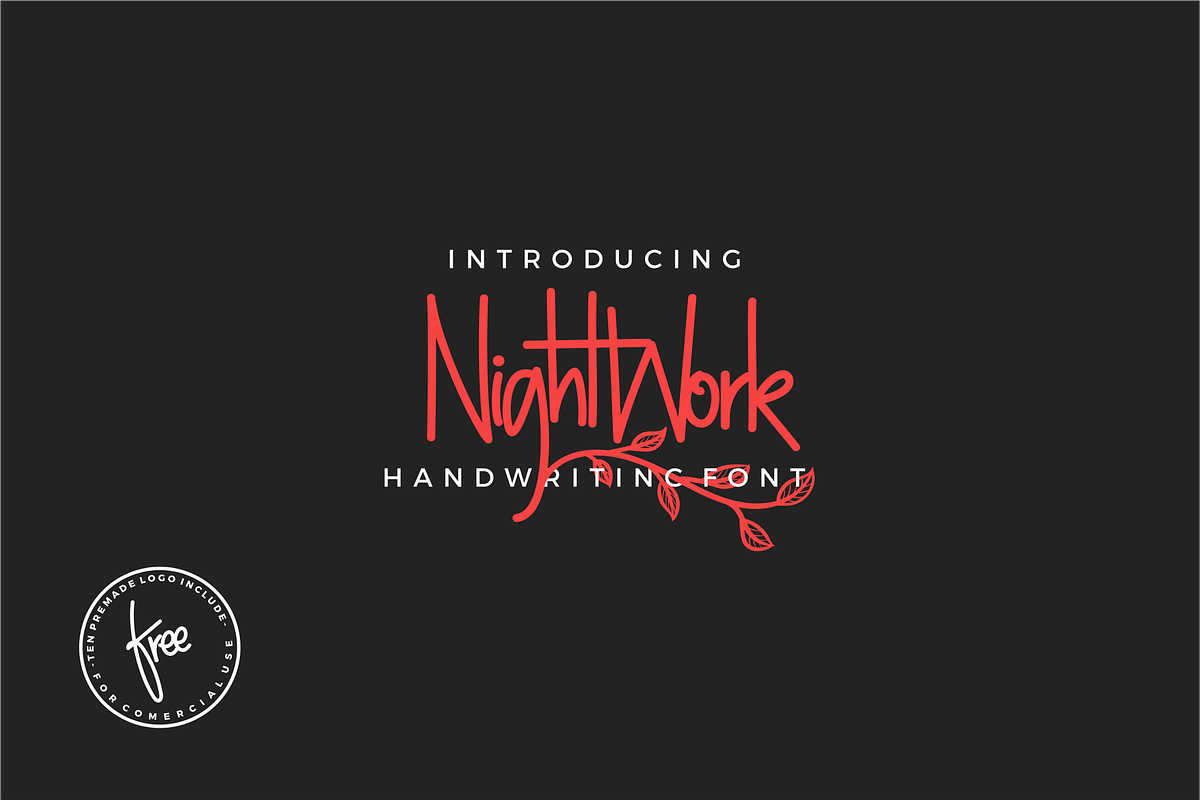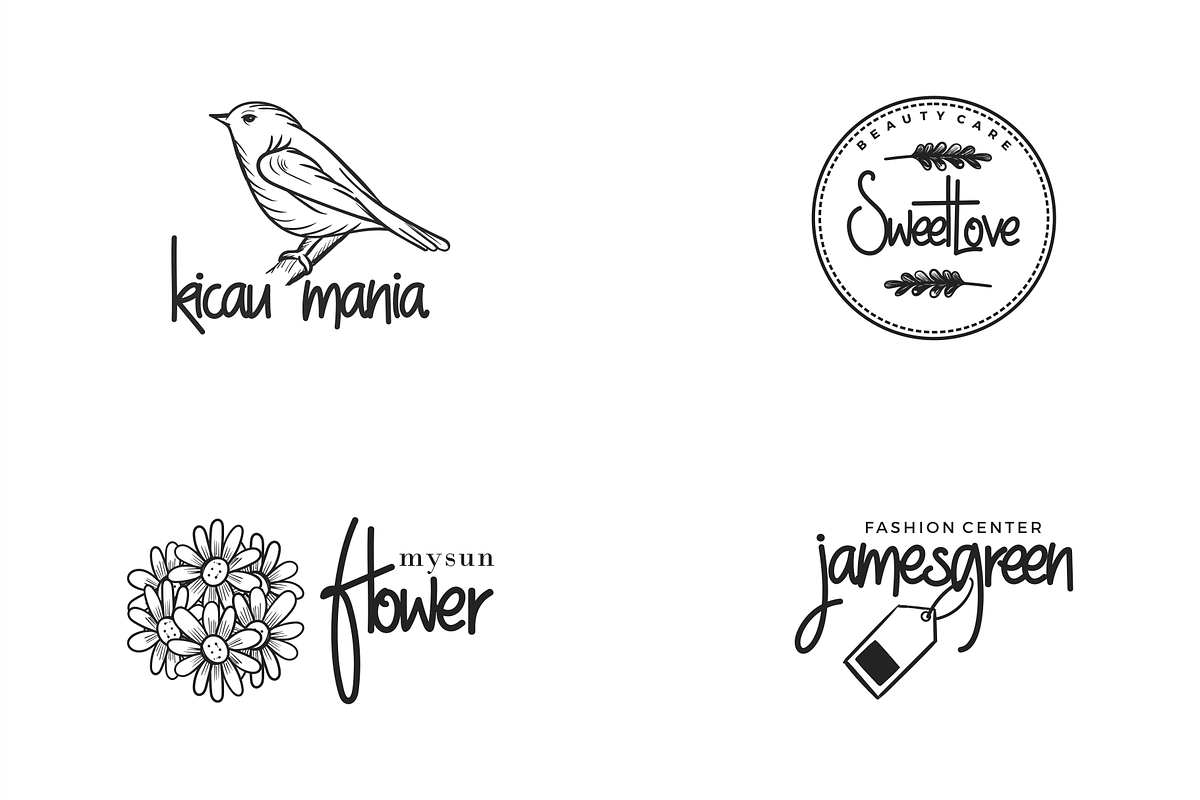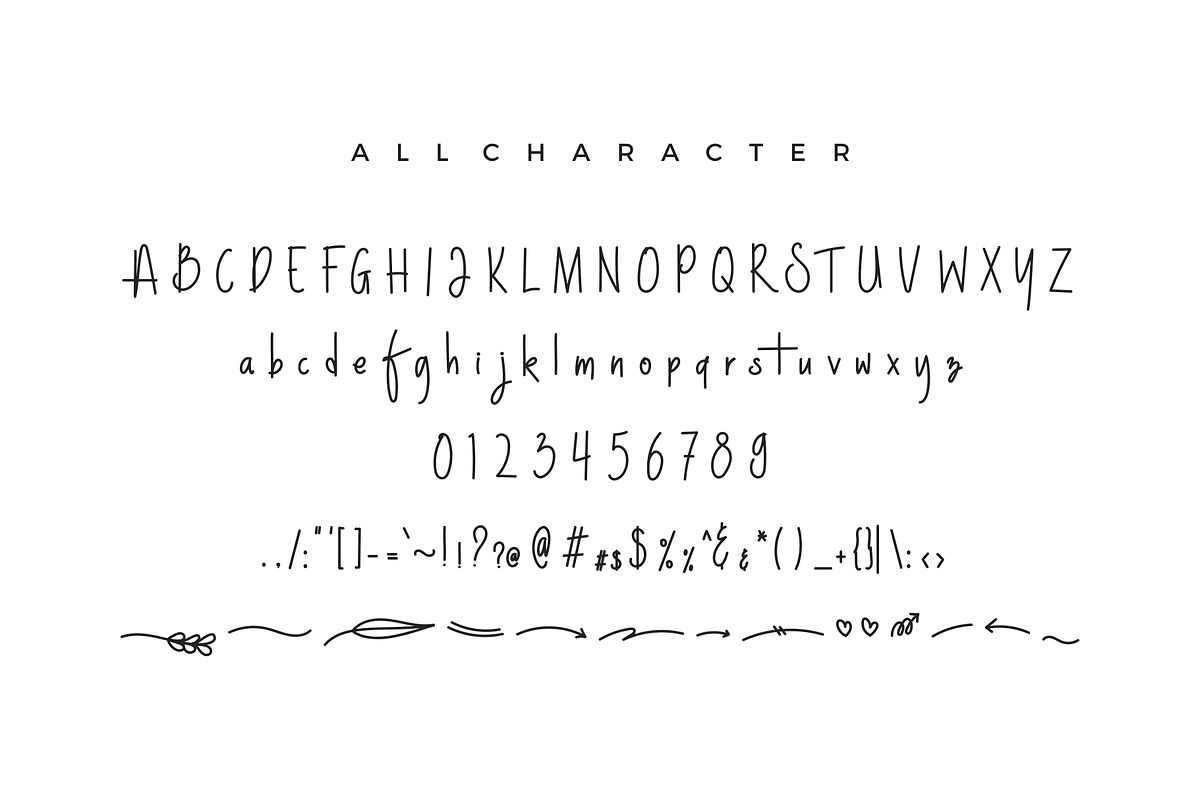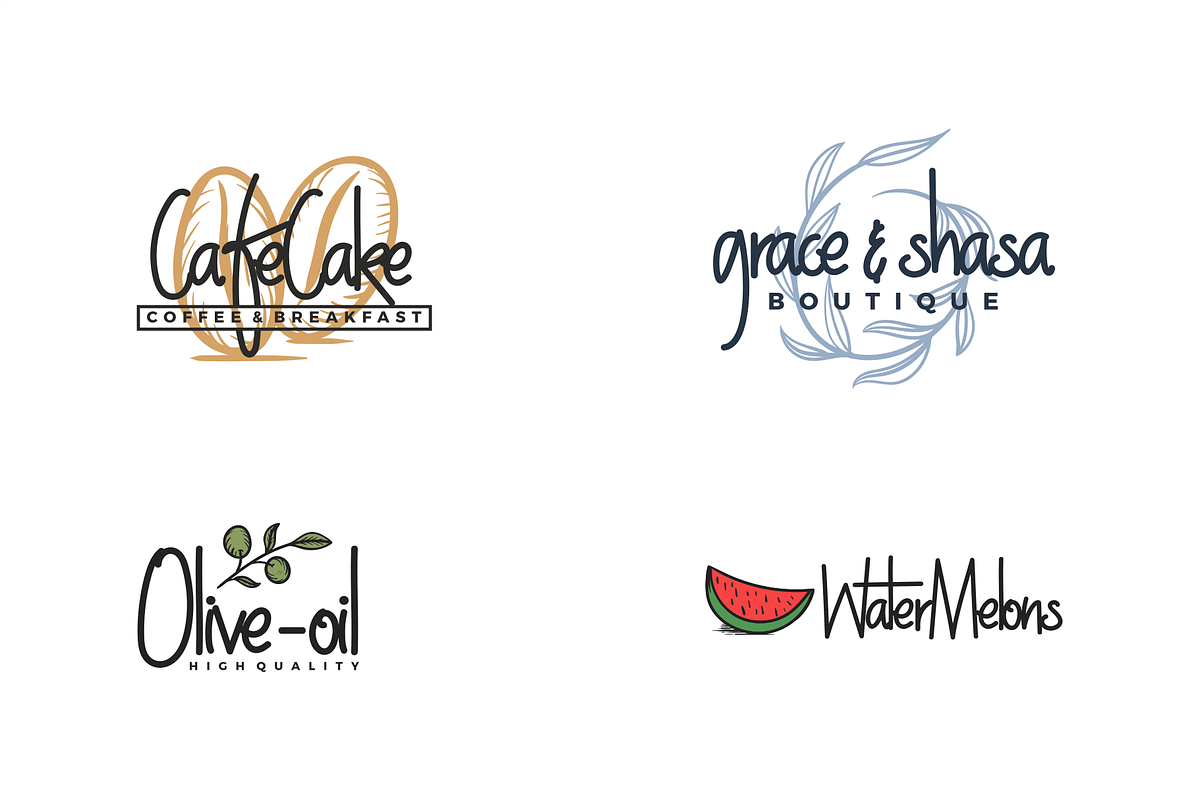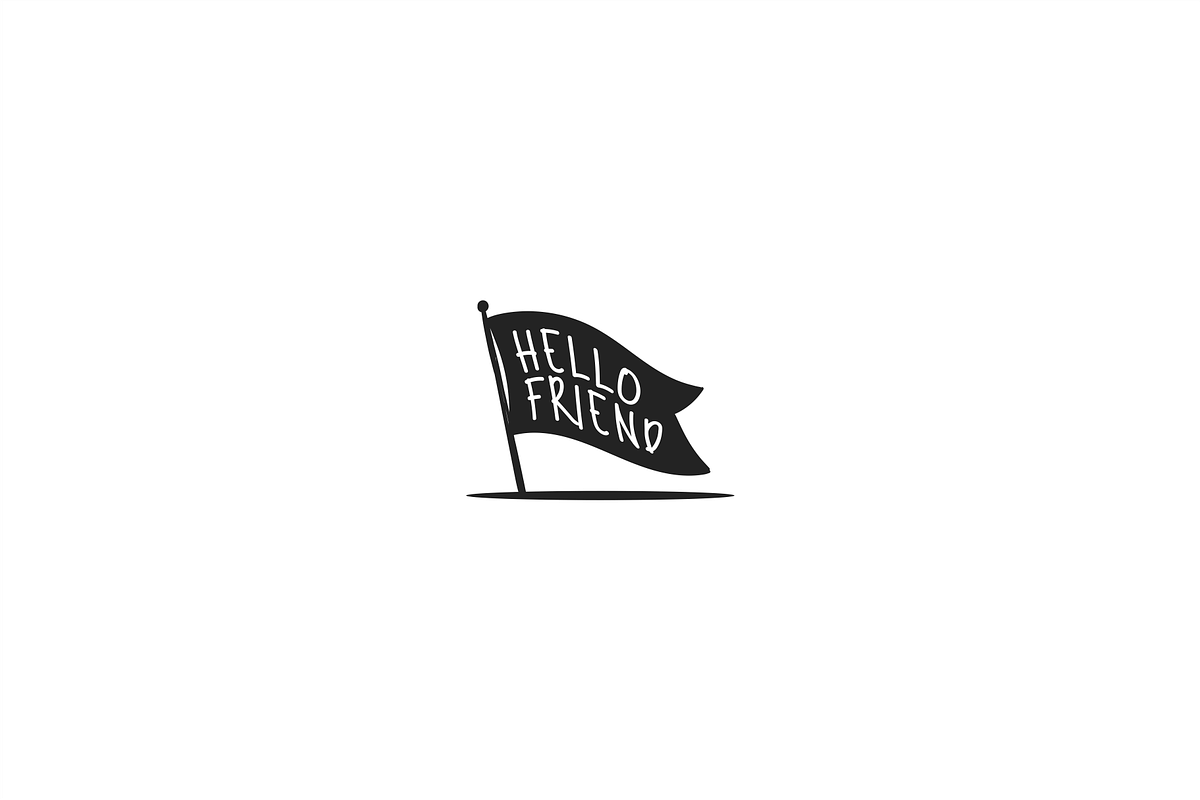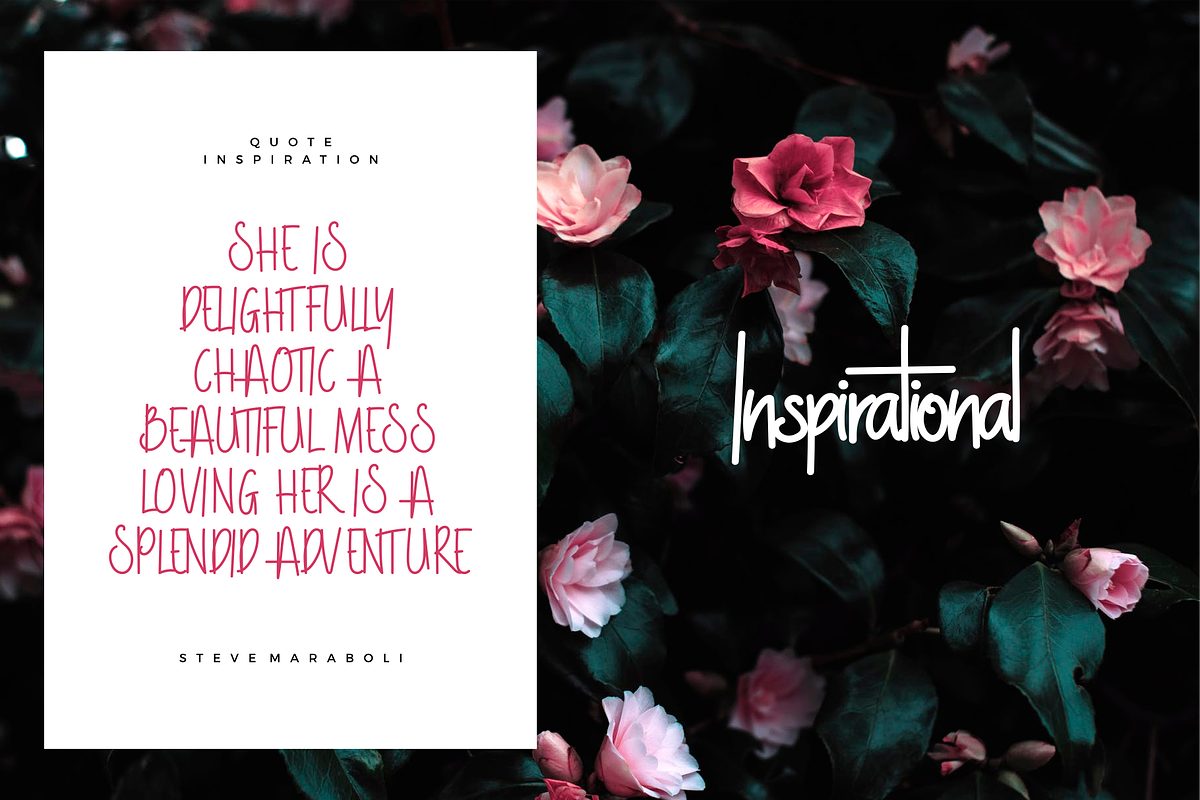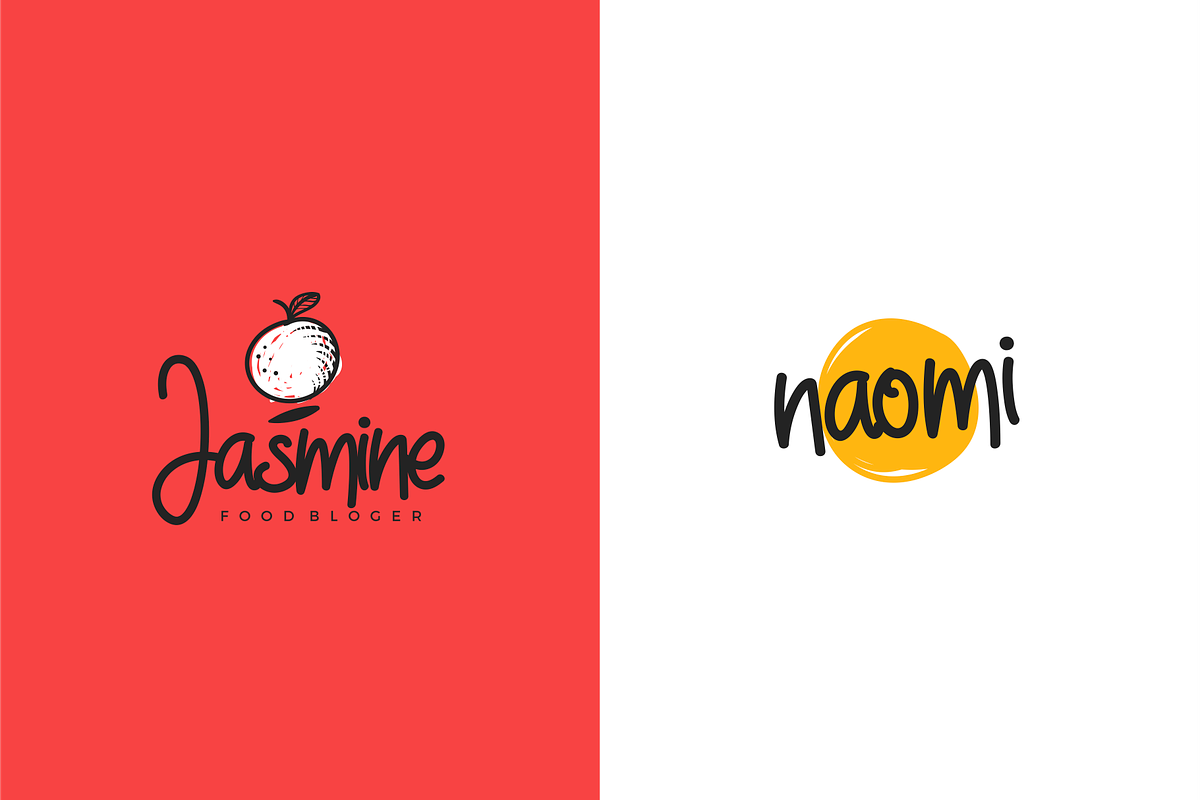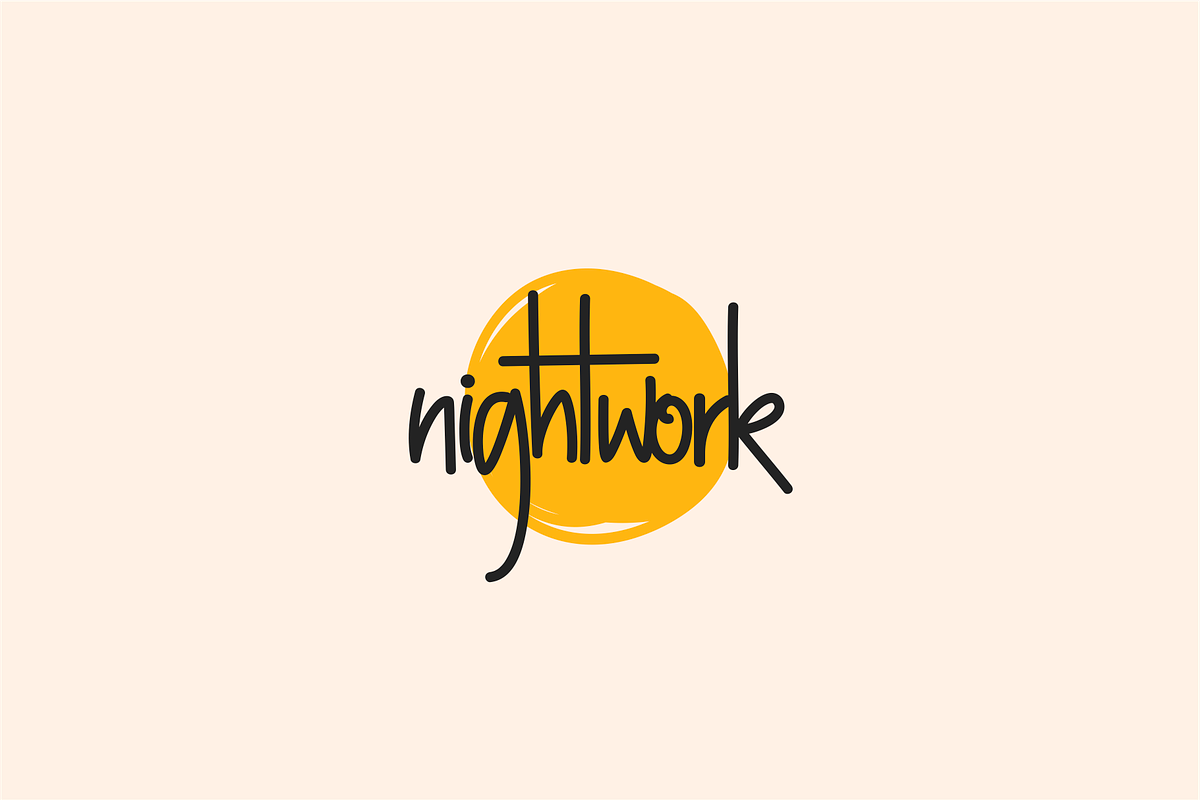
NightWork - Handwriting Font
NightWork is a font with soft handwriting style, available in uppercase and lowercase format, and some alternate can be used as ornament in your design. This font has a feminine and cute character suited to the food business, food bloger, title, quote, etc., and is also suitable for printing on flayers, posters, brochures, quotes, blog titles, advertisements and printed products others who require writing with the impression of sweet, cute, and feminine.